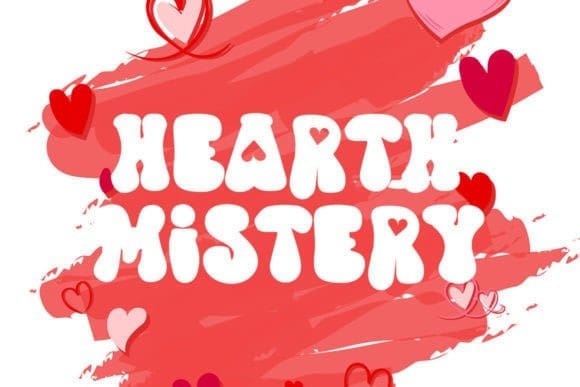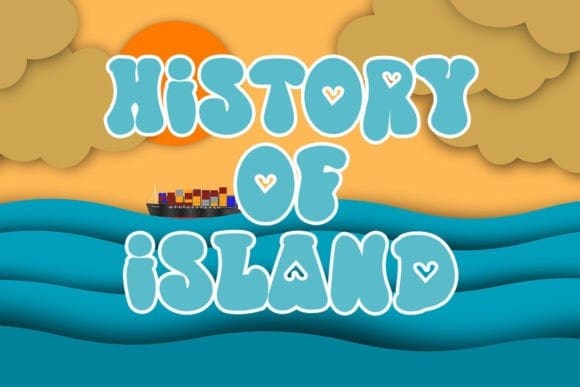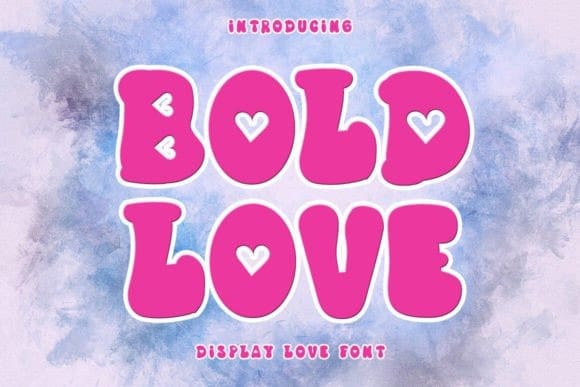
Bold Love Font
Bold Love Font is a bold, all caps display font featuring the perfect amount of trendiness. Whether you’re using it for crafting, digital designing, presentations or greeting cards making, it’s perfect!